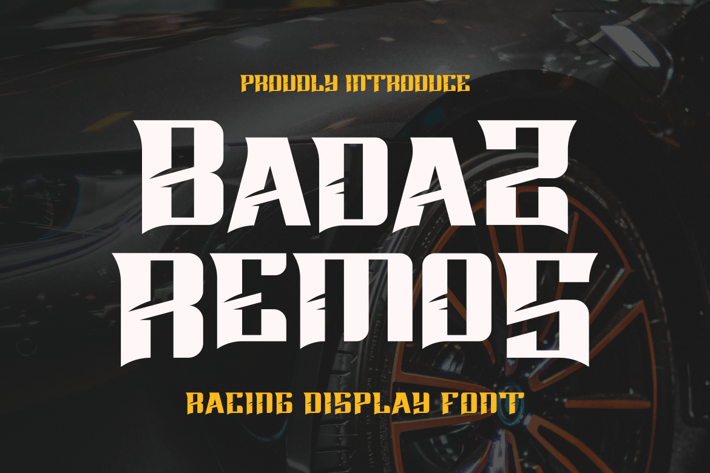
Badas Remos - Racing Font
Presenting Badas Remos - Font is suitable for badge, labels, logo, branding, magazine, poster and etc. Our fonts have Uppercase & Lowercase, Numeral & Punctuation, Multilingual support and Opentype Features. For Amazing designs you can mix with other fonts as a complement.